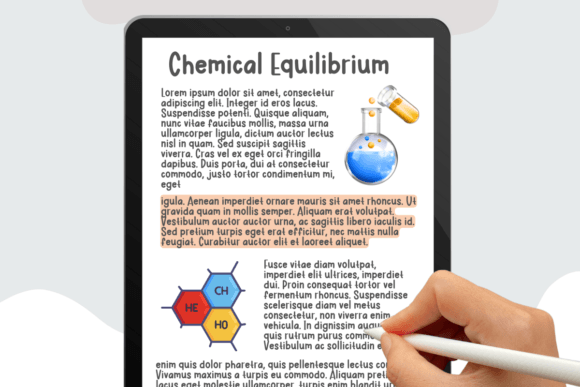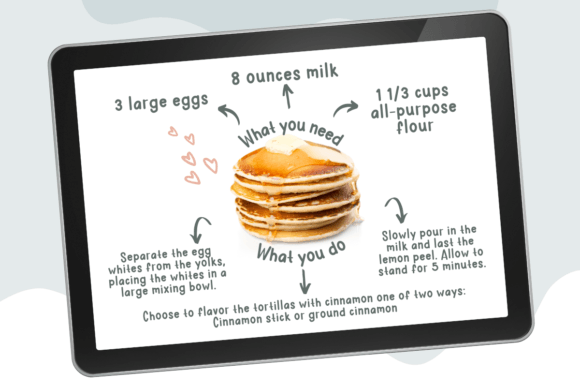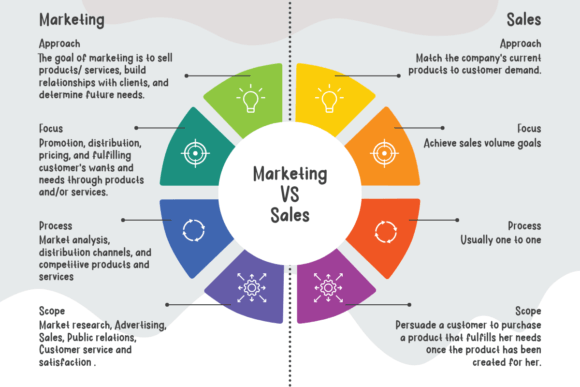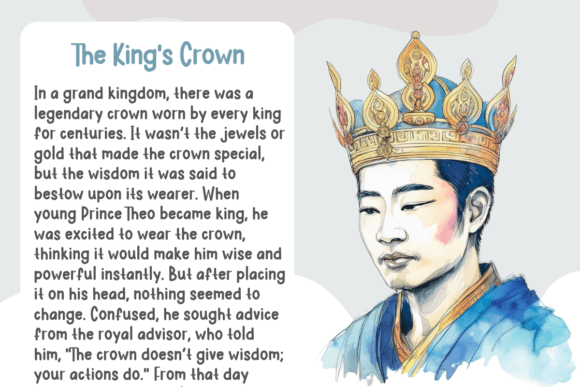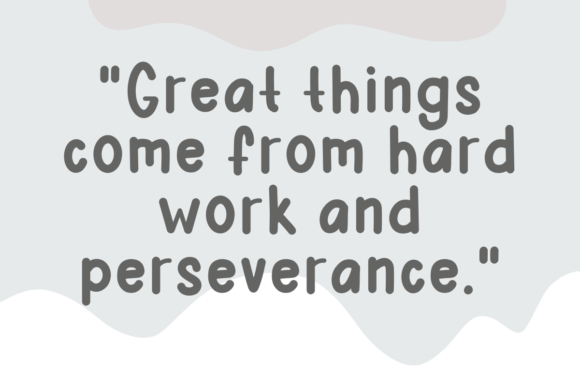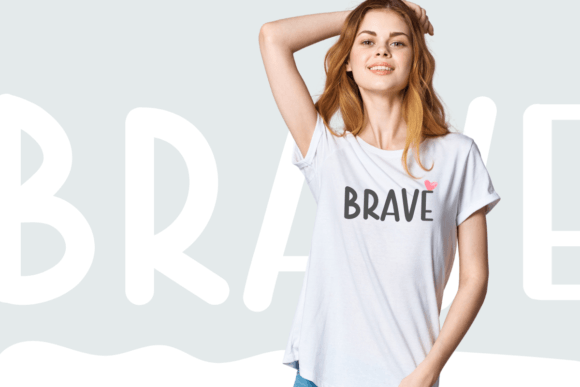
The Font that Crowned My Design: A Love Letter to Cash Crown
I still remember the design project that led me to discover Cash Crown. I was working on a branding project for a new coffee shop, and I was struggling to find the perfect font. The client wanted something clean, modern, and highly legible across various platforms, from their website to printed menus. After hours of searching, I stumbled upon Cash Crown, and it was love at first sight. In this article, I’ll share my experience with this amazing font, its features, and how to make the most of it in your designs.
The Good: Why I Love Cash Crown
- ✨ Excellent legibility: Cash Crown’s crisp lines and well-balanced proportions make it easy to read, even at small sizes.
- ✅ Clean and modern aesthetic: Its sans-serif design gives it a fresh and contemporary look that’s perfect for digital and print projects.
- 💡 Versatility: Cash Crown works seamlessly across various platforms, from websites to social media graphics, and even printed materials like brochures and business cards.
The Not-So-Perfect: A Few Quirks
While Cash Crown is an excellent font, it’s not without its limitations. Here are a few things to keep in mind:
- 🤔 Limited stylistic options: Cash Crown is a straightforward font with limited stylistic alternates, which might not offer as much creative flexibility as some designers might want.
- ⚠️ Not ideal for body text in long documents: While it’s legible, Cash Crown’s clean and modern design might make it less suitable for lengthy documents, where a serif font might be more readable.
The Story Behind Cash Crown: Designer Inspiration
While the actual origins of Cash Crown are unclear, it’s easy to imagine that it was designed with the goal of creating a clean, modern font for everyday use. Perhaps the designer wanted to craft a font that would be both highly legible and versatile, suitable for a wide range of projects. Whatever the inspiration, Cash Crown has undoubtedly become a valuable tool for designers seeking a reliable and stylish font.
| Author | DrextorLetters |
Q: Is Cash Crown suitable for body text in long documents?
A: While Cash Crown is legible, it might not be the best choice for lengthy documents. Consider using a serif font for better readability.
Q: Can I use Cash Crown on mobile devices?
A: Yes, Cash Crown is optimized for digital use and works well on mobile devices.